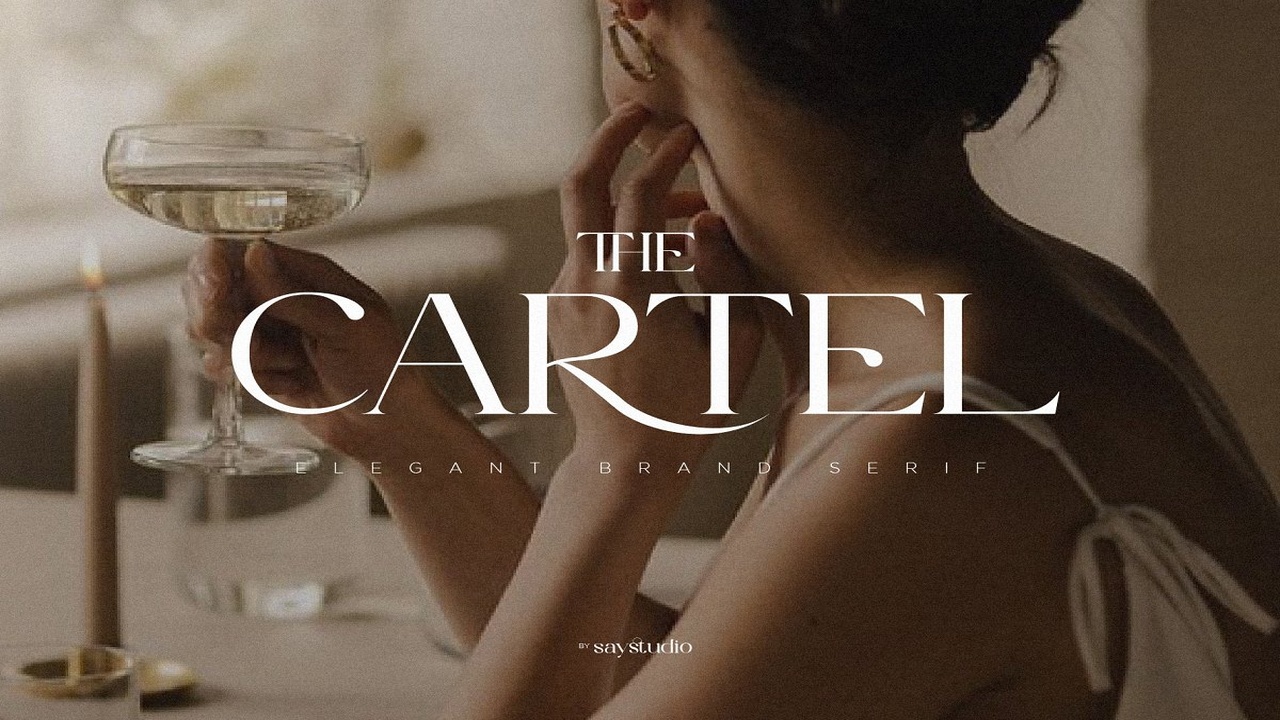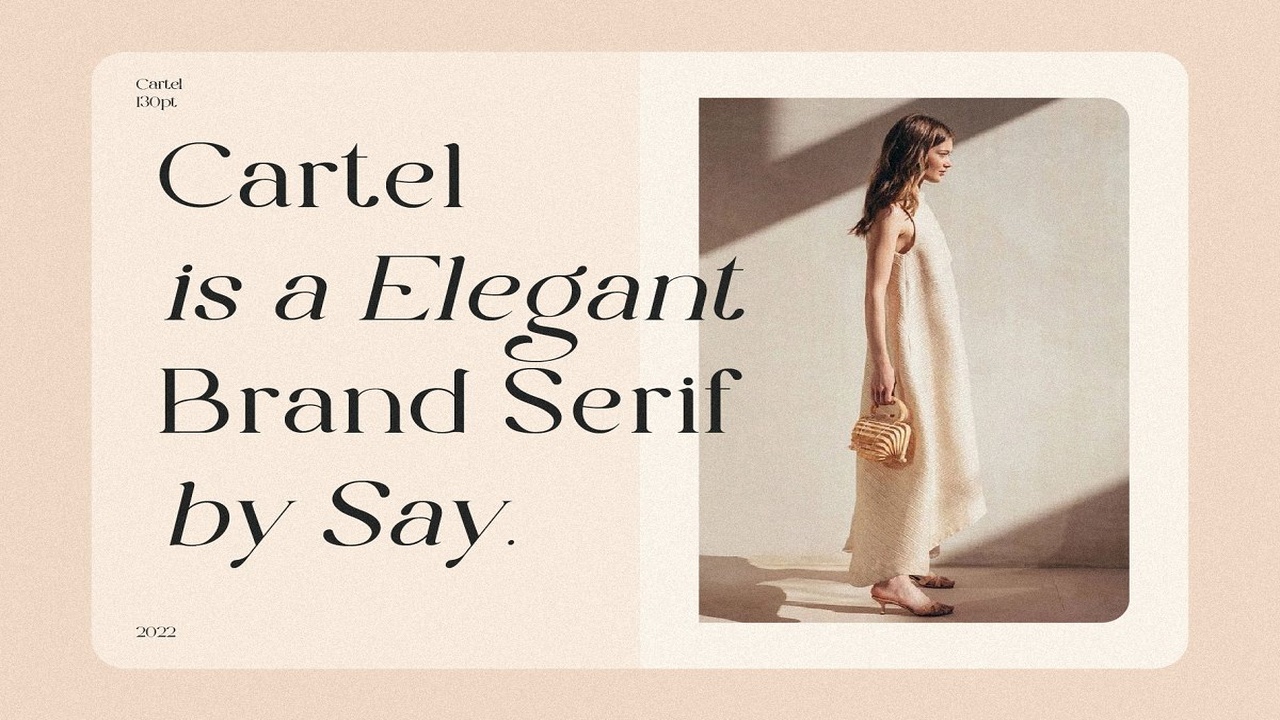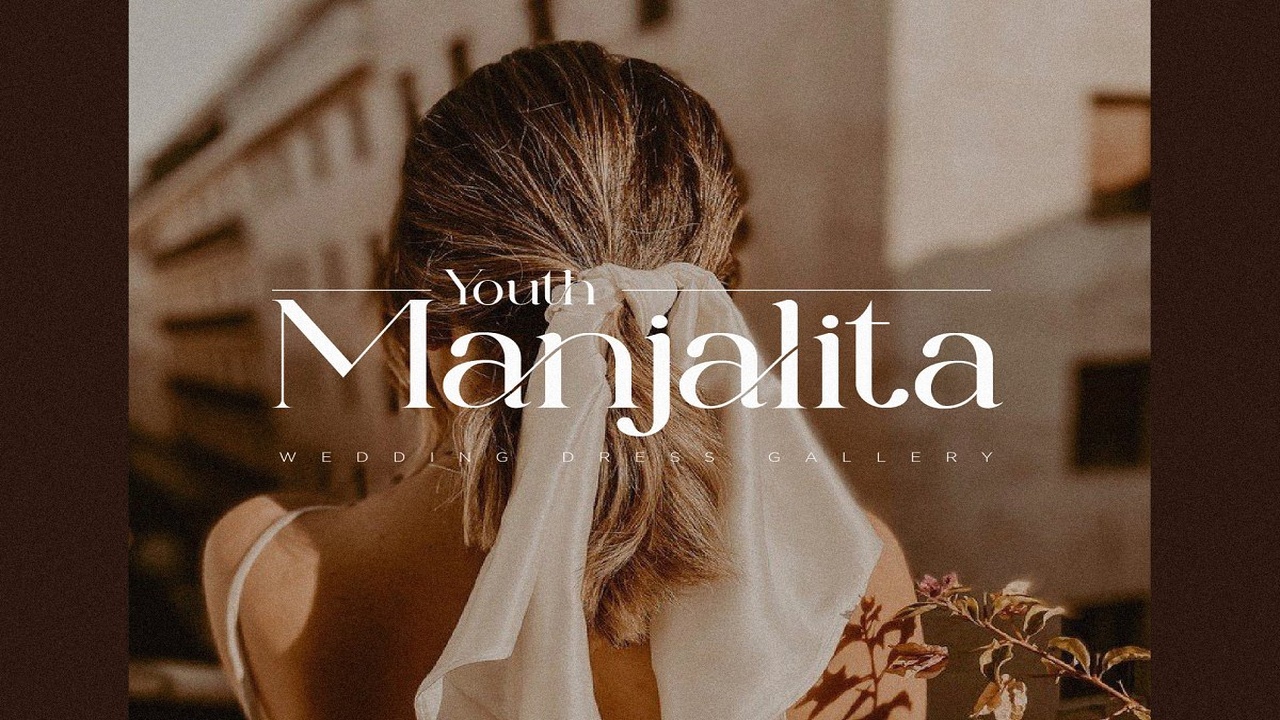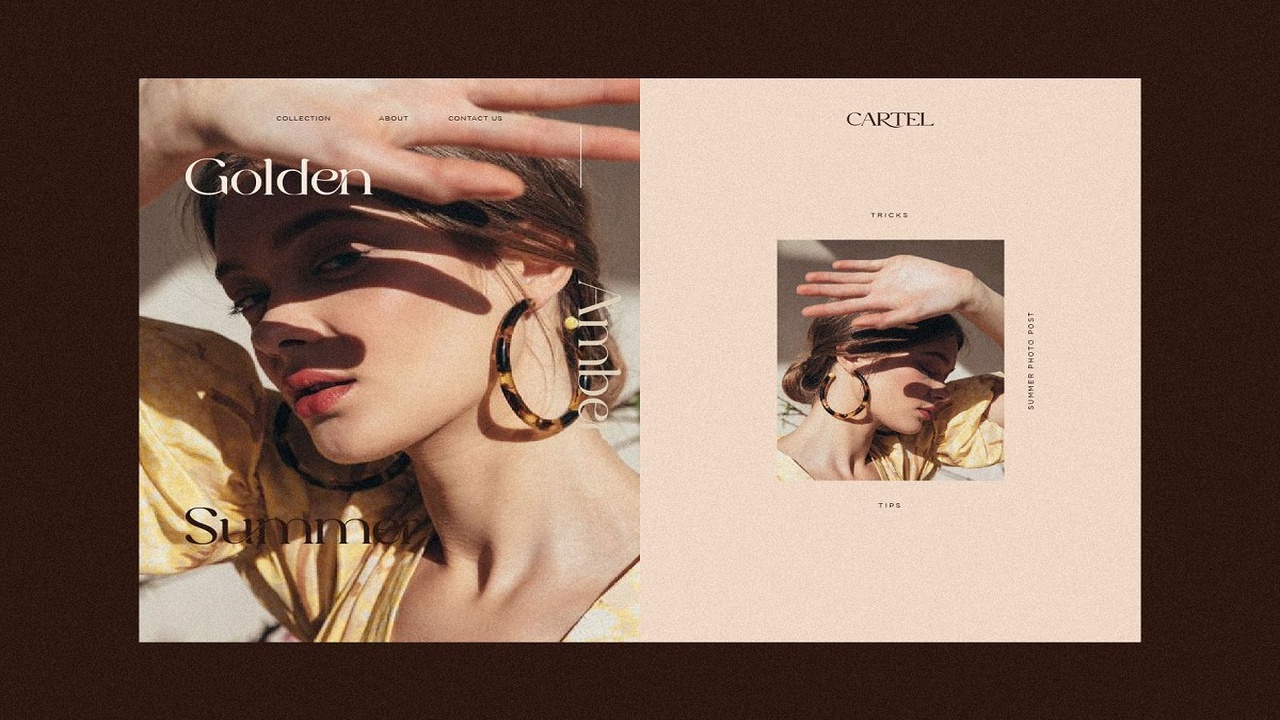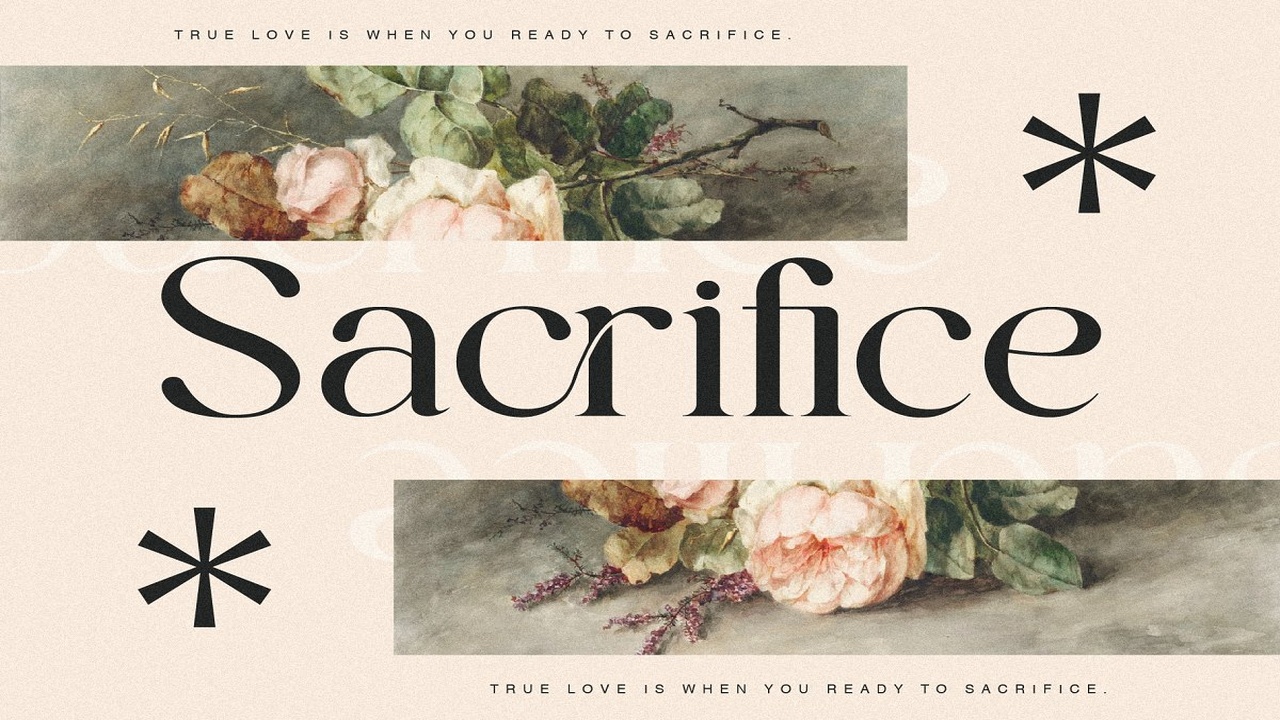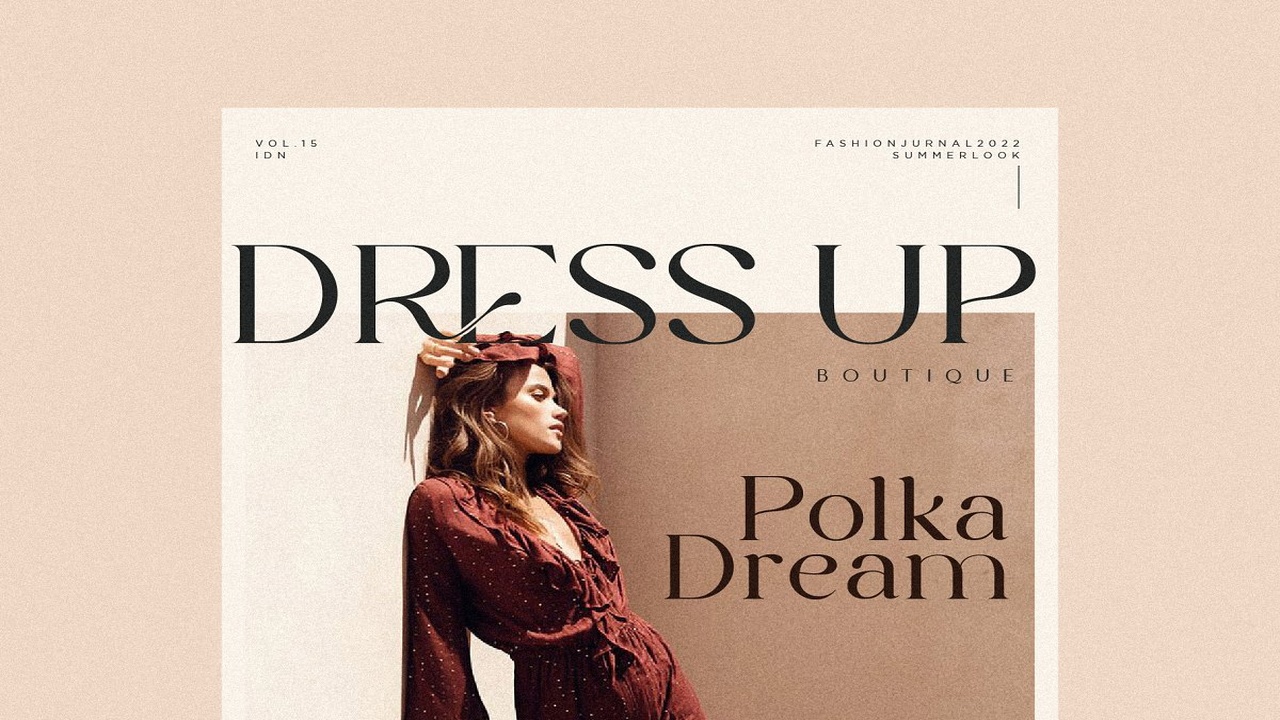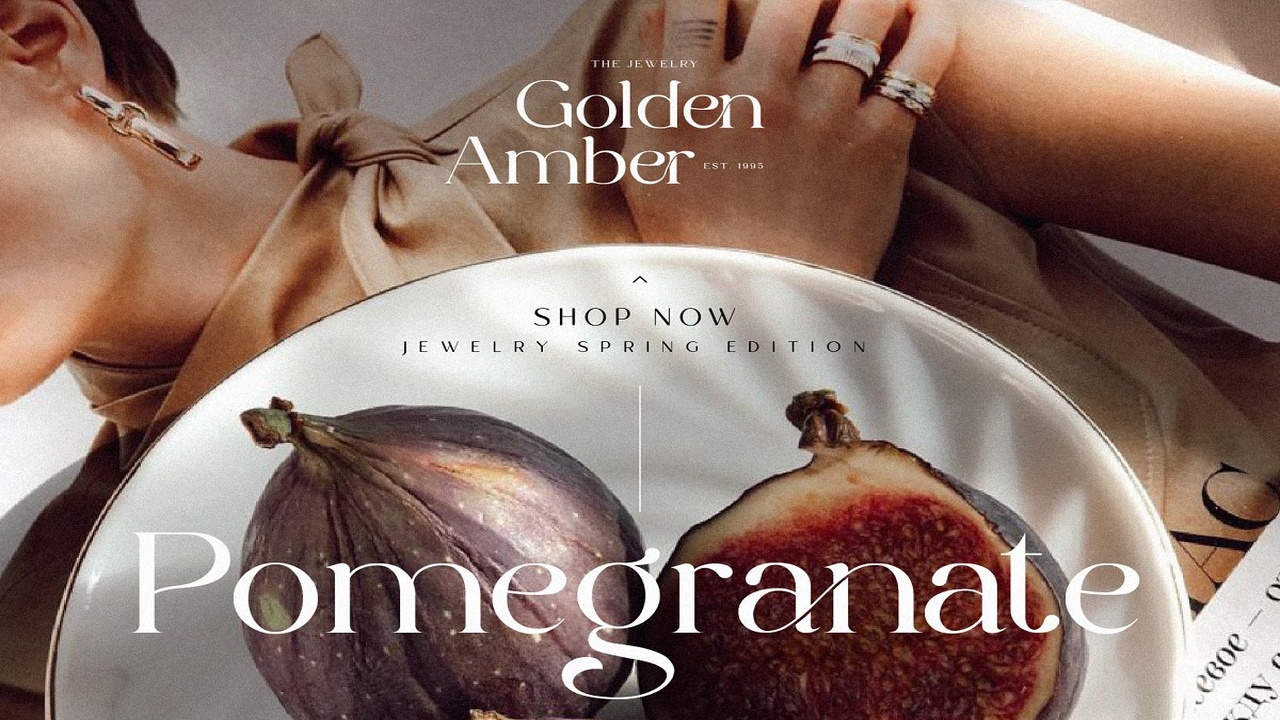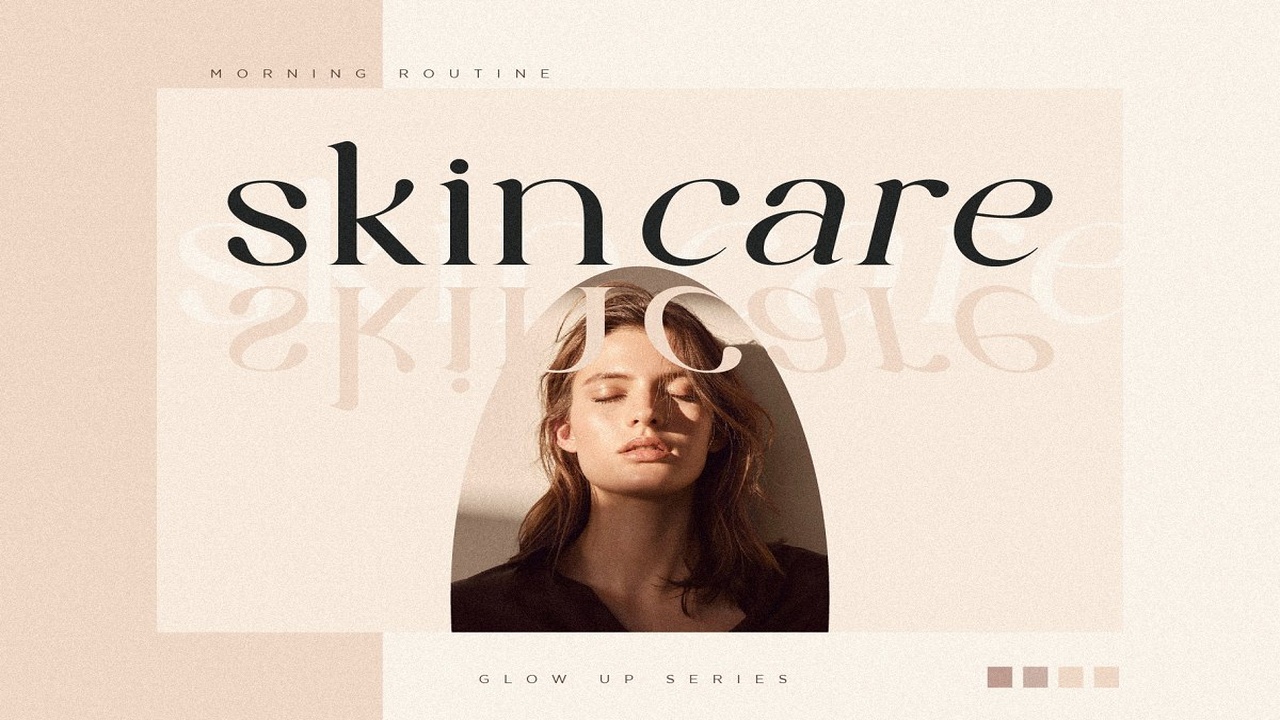
About the The Cartel Elegant Serif Font
About the ProductThe Cartel is a elegant serif font , This typeface has been made carefully to make sure its premium quality and luxury feel, The ligatures makes this typeface unique and stands out rather than the regular serif font, Very suitable for logo, headline, tittle, and the other various formal forms such as invitations, labels, logos, magazines, books, greeting / wedding cards, packaging, fashion, make up, stationery, novels, labels or any type of advertising purpose